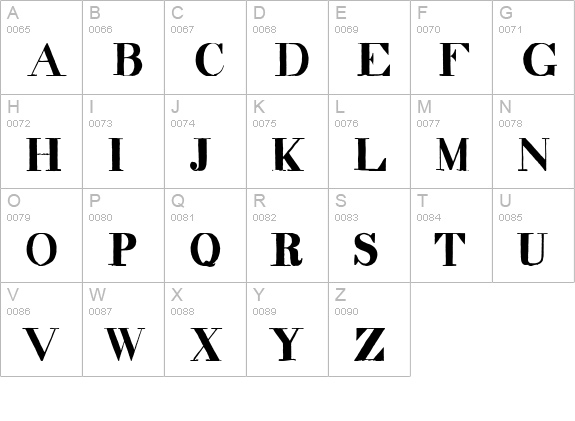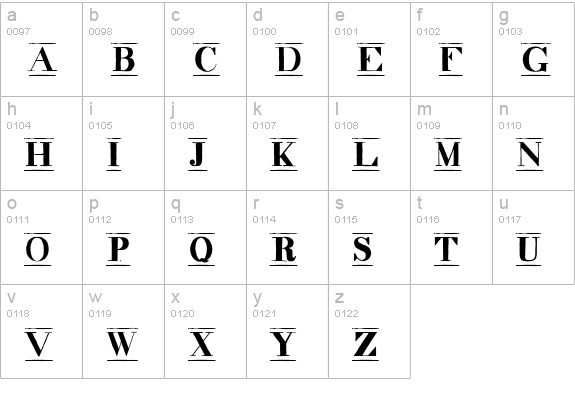
decadence itd condensed marquee is a distinctive, condensed-width variant in the decadence typeface family \xE2\x80\x94 well suited to design and typography projects.
Embrace the luxurious allure of Decadence ITD condensed marquee font, exuding sophistication and elegance in every character. This sleek and stylish font captures the essence of opulence and refinement, perfect for adding a touch of class to your design projects. With its clean lines and modern aesthetic, Decadence ITD demands attention and leaves a lasting impression. And the best part? This exquisite font is available for free download at FontsMarket.com, offering you the opportunity to elevate your creations without breaking the bank. Don't miss out on the chance to enhance your designs with the decadent charm of Decadence ITD condensed marquee font - download it now and let your creativity shine!